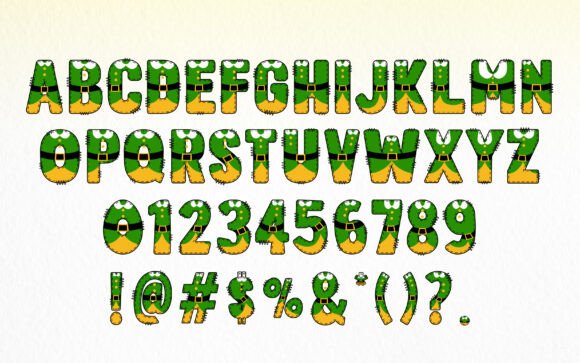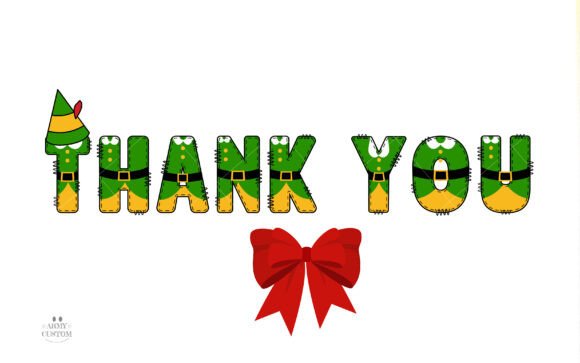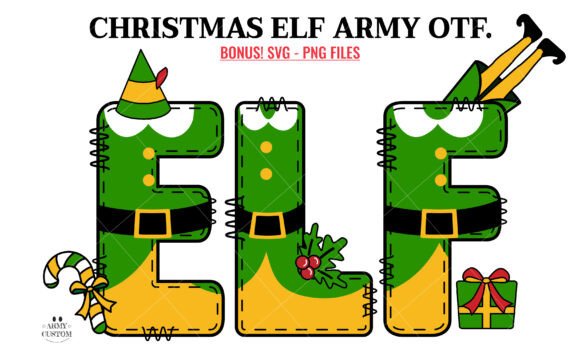
Introducing the Christmas Elf Army Font: A Whimsical Addition to Your Holiday Design Toolkit
The holiday season is upon us, and with it comes the desire to create festive and fun designs that capture the spirit of Christmas. If you’re a designer or crafter looking to elevate your holiday projects, look no further than the Christmas Elf Army Font. This delightful font is imbued with a sense of whimsy, making it a playful addition to your holiday design toolkit.
A Font Inspired by Santa’s Helpers
The Christmas Elf Army Font is inspired by the adorable antics of Santa’s helpers, bringing a sense of joy and merriment to any design project. Its jovial style makes it an ideal choice for creating vibrant holiday decorations or adding a dash of festive fun to any design. With this font, every letter spelled out becomes a joyous celebration, perfect for getting you in the holiday spirit.
Compatibility and Uses
Tips for Using the Christmas Elf Army Font
Here are a few tips to keep in mind when using the Christmas Elf Army Font:
- Experiment with different font sizes and colors to create a unique look that suits your design.
- Use the font to create festive headings, titles, and text elements that add a touch of holiday cheer to your designs.
- Combine the Christmas Elf Army Font with other festive fonts and graphics to create a cohesive and eye-catching design.
Why Choose the Christmas Elf Army Font?
So why choose the Christmas Elf Army Font for your holiday design projects? Here are just a few reasons:
- Whimsical style: The Christmas Elf Army Font has a playful, whimsical style that’s perfect for capturing the spirit of the holiday season.
- Versatility: The font comes in both black and color versions, making it compatible with a range of design programs and cutting machines.